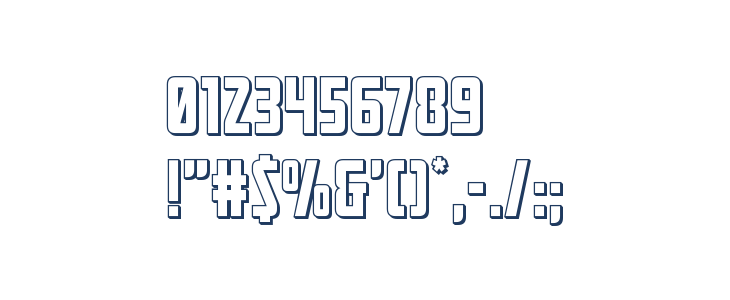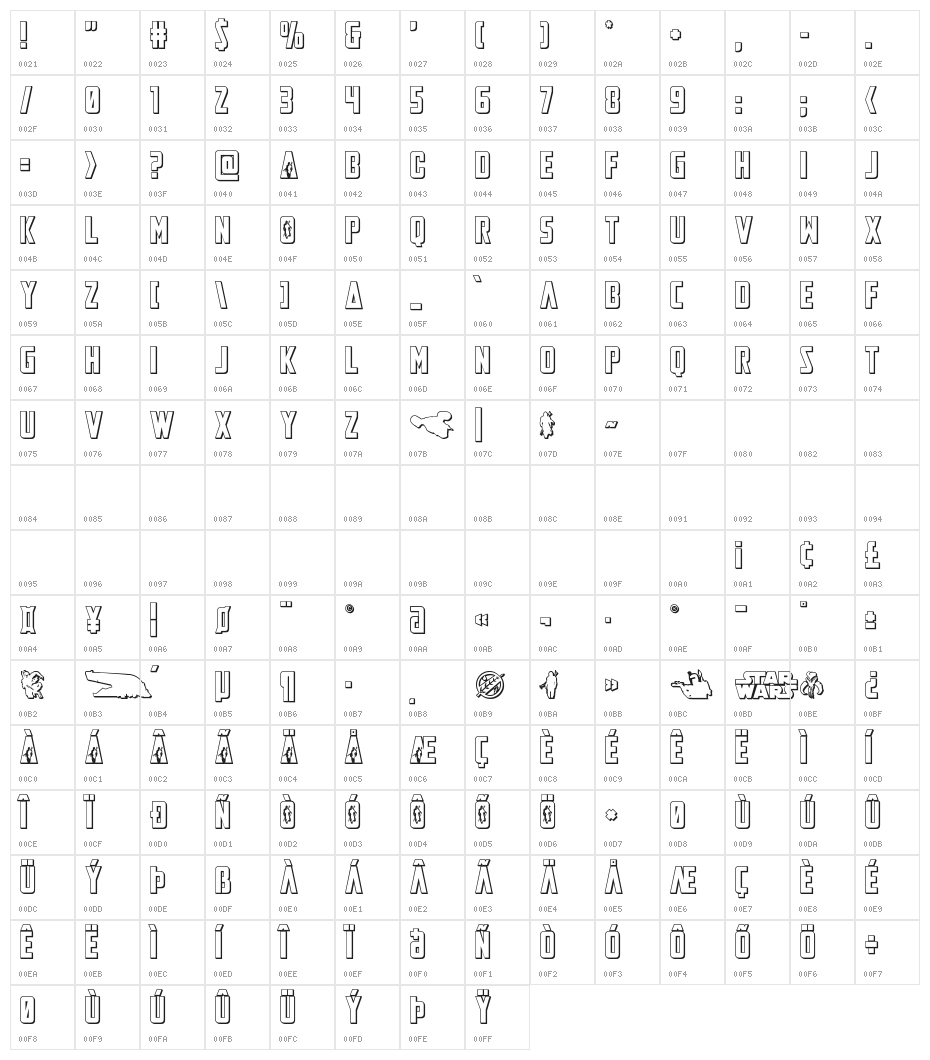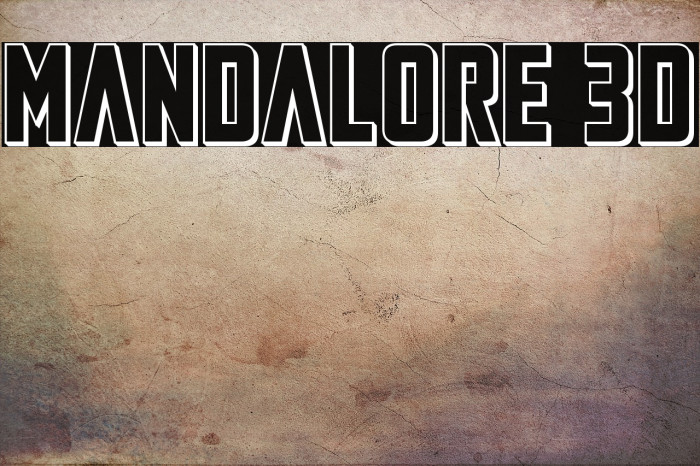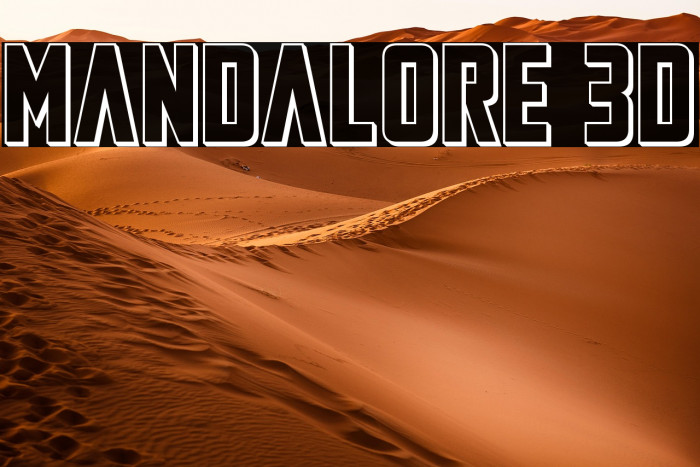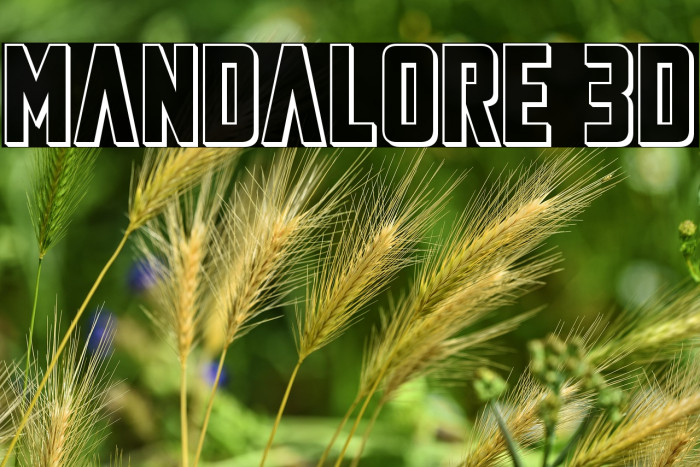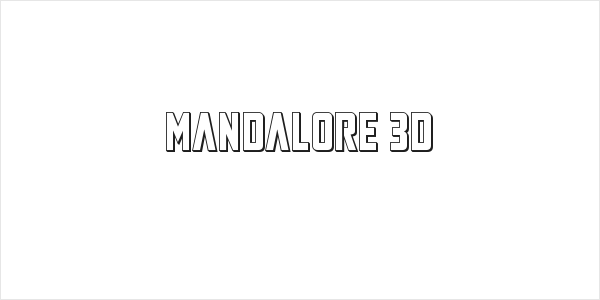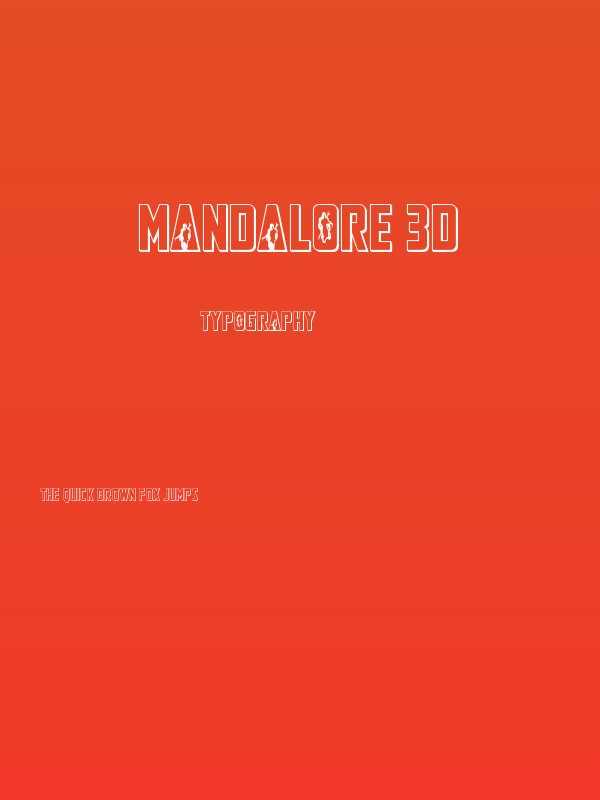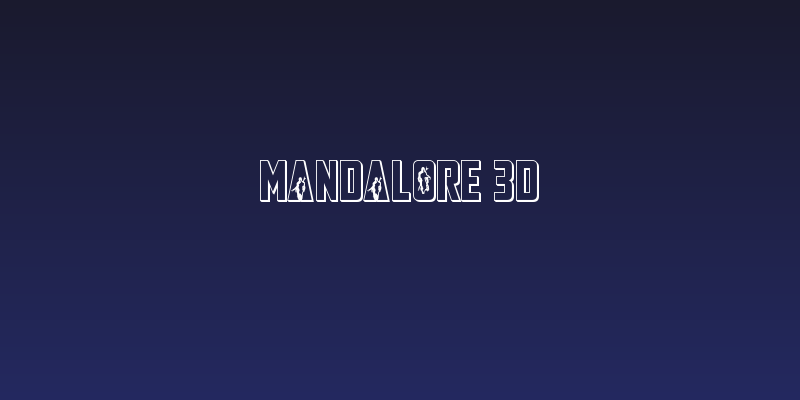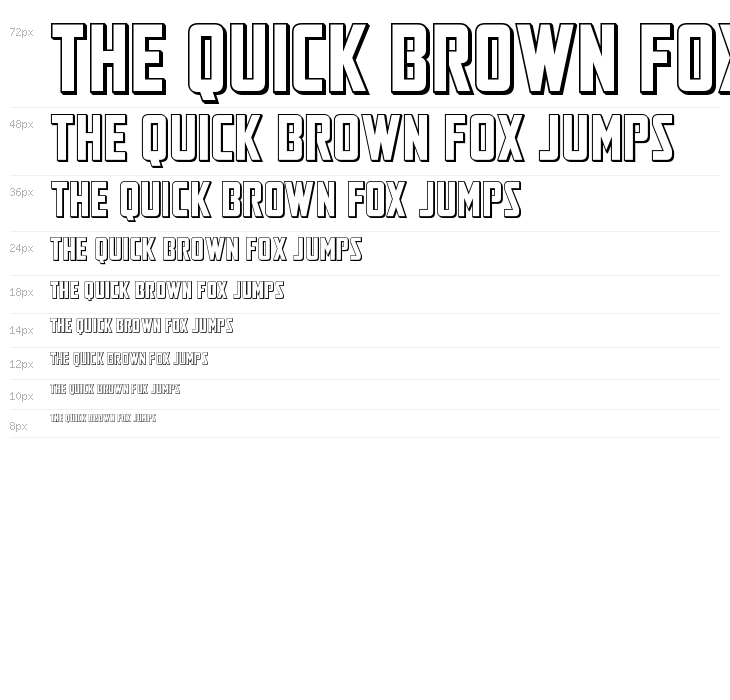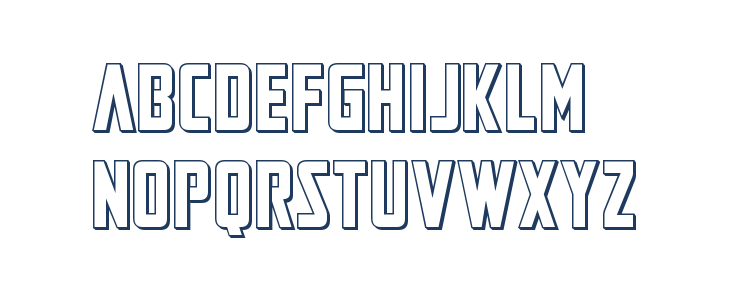
Mandalore 3D Font
Mandalore 3D Description
This font features a bold, three-dimensional design with a strong, futuristic aesthetic. The characters are outlined, giving them a distinct, eye-catching appearance. The uppercase letters are particularly striking, with sharp angles and a solid presence. The numbers and special characters maintain this bold style, ensuring consistency across all elements. The font's unique design includes silhouettes within some letters, adding an extra layer of visual interest. This font is ideal for projects that require a modern and impactful look.